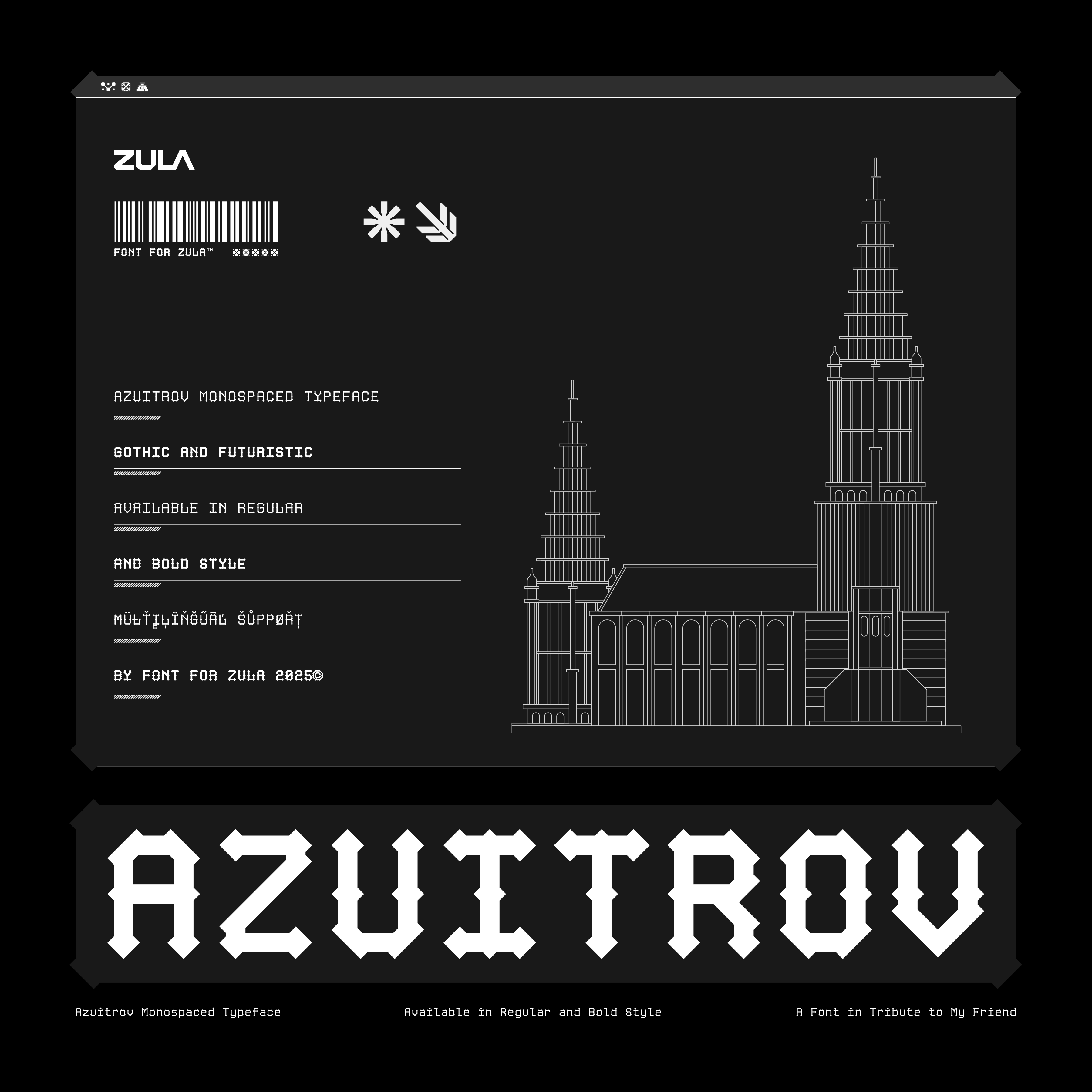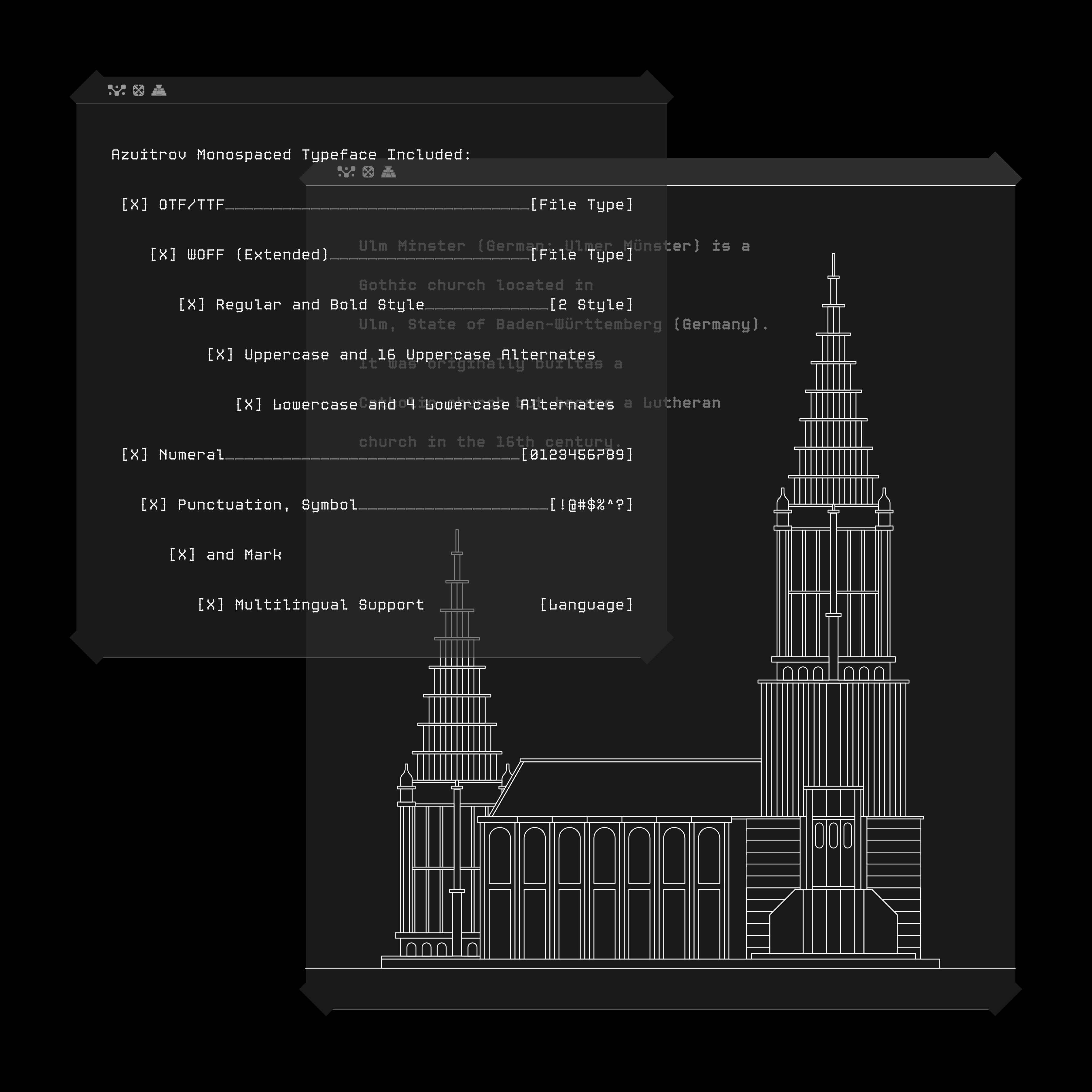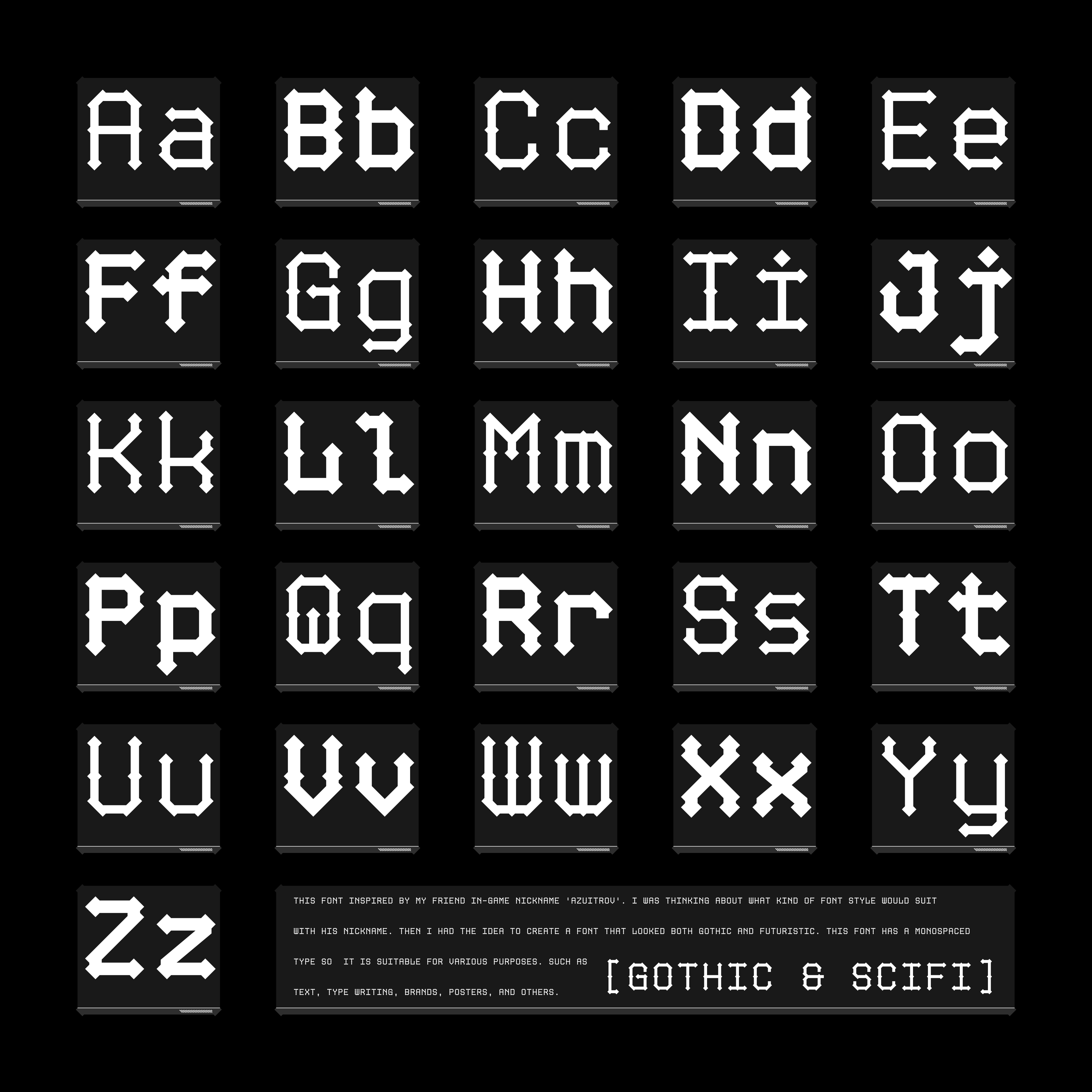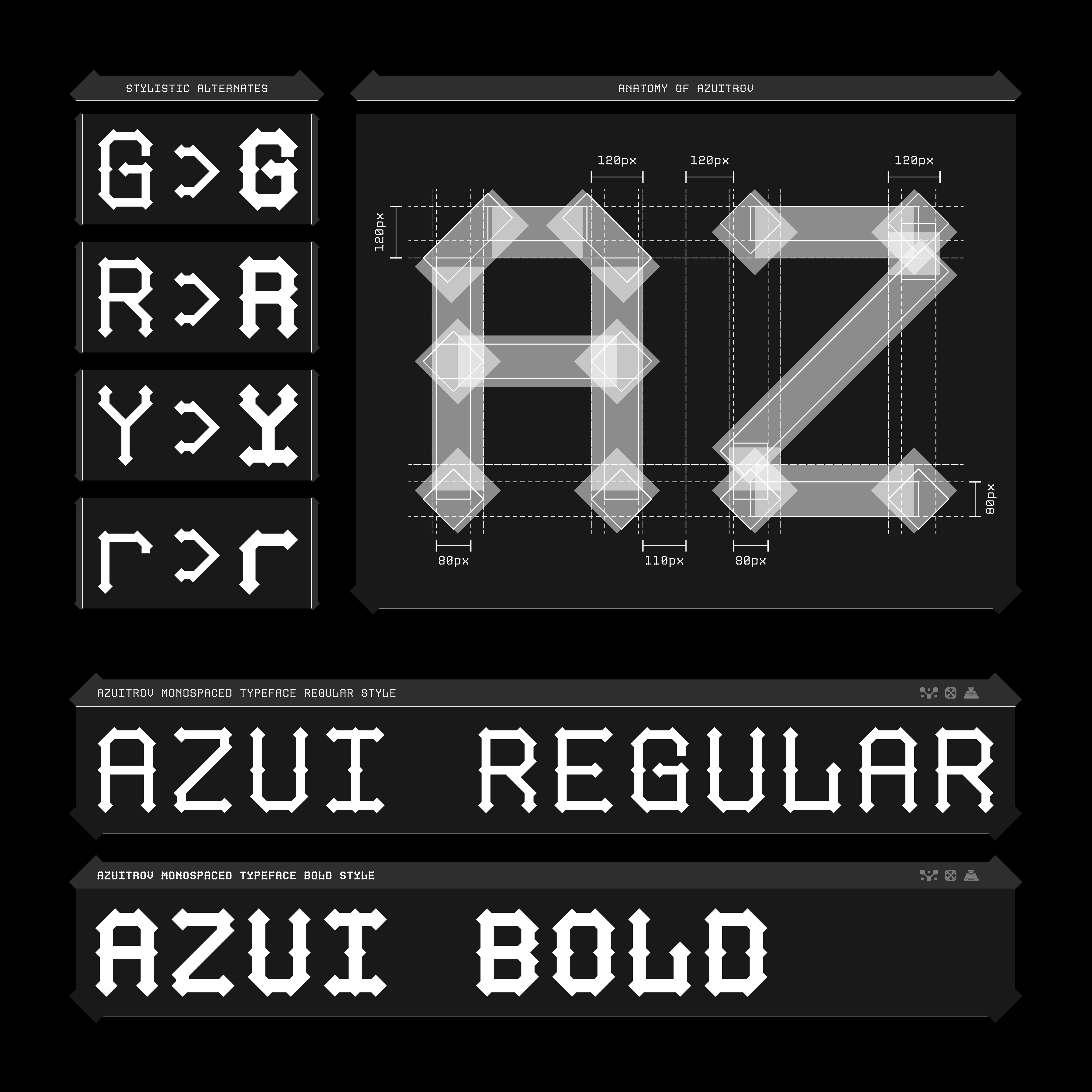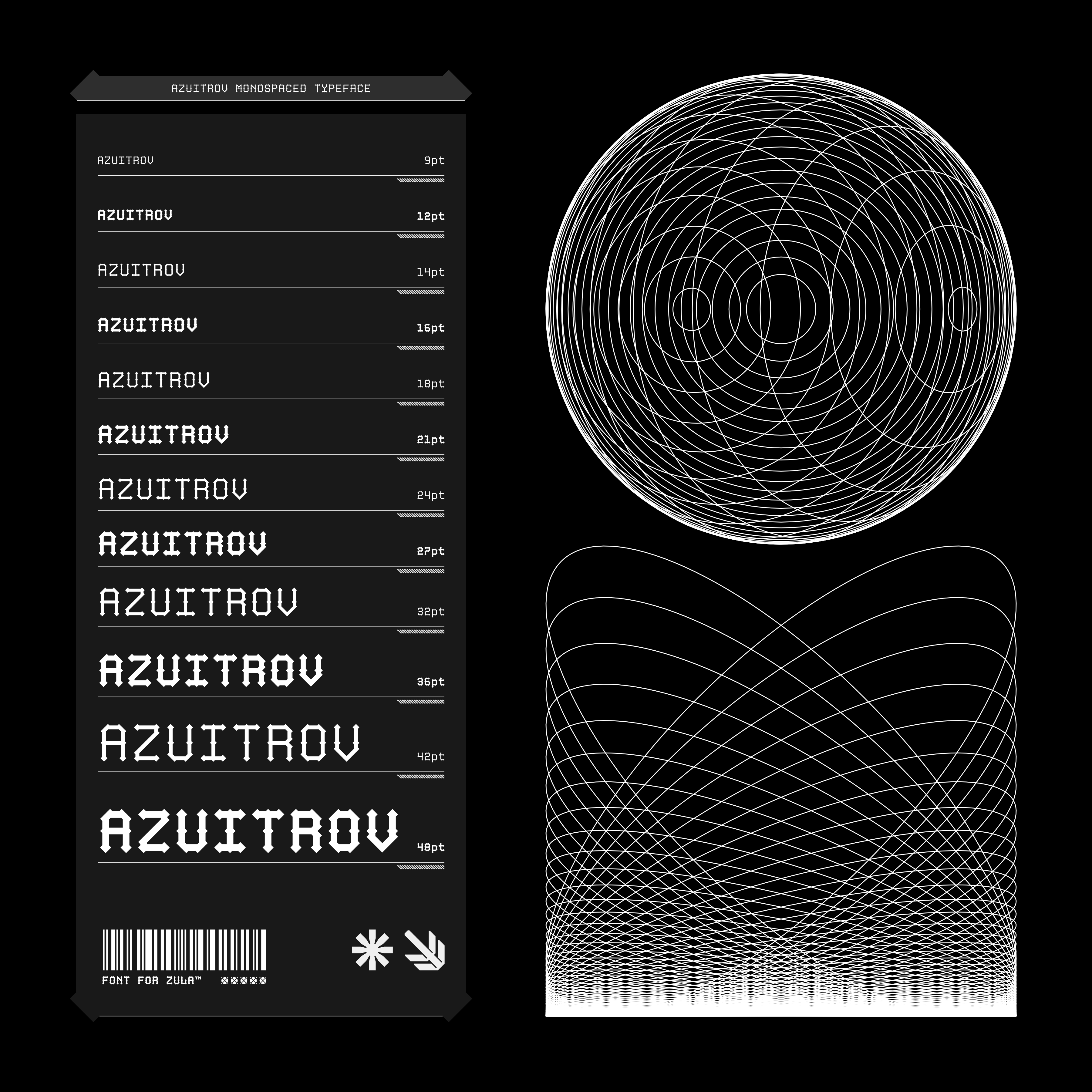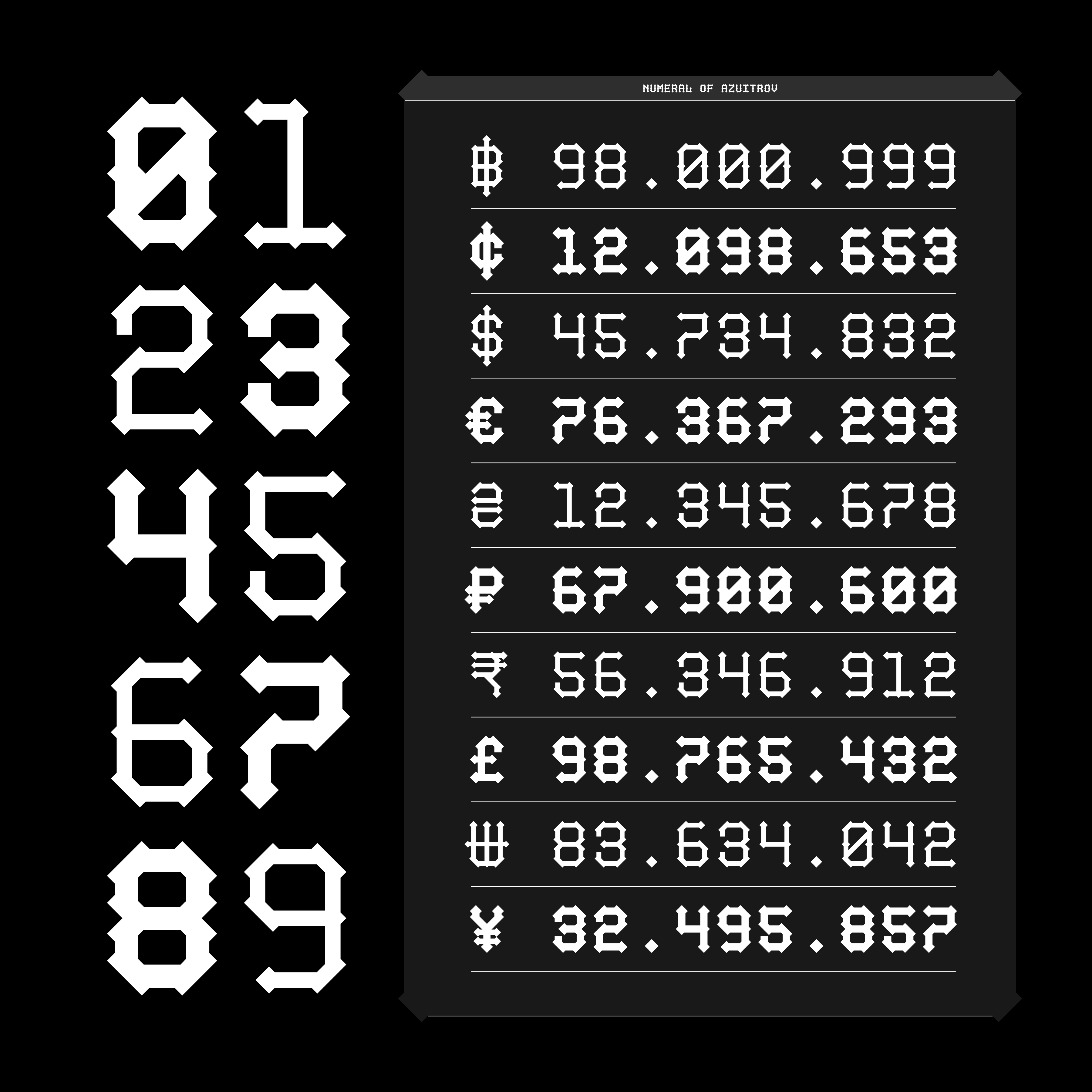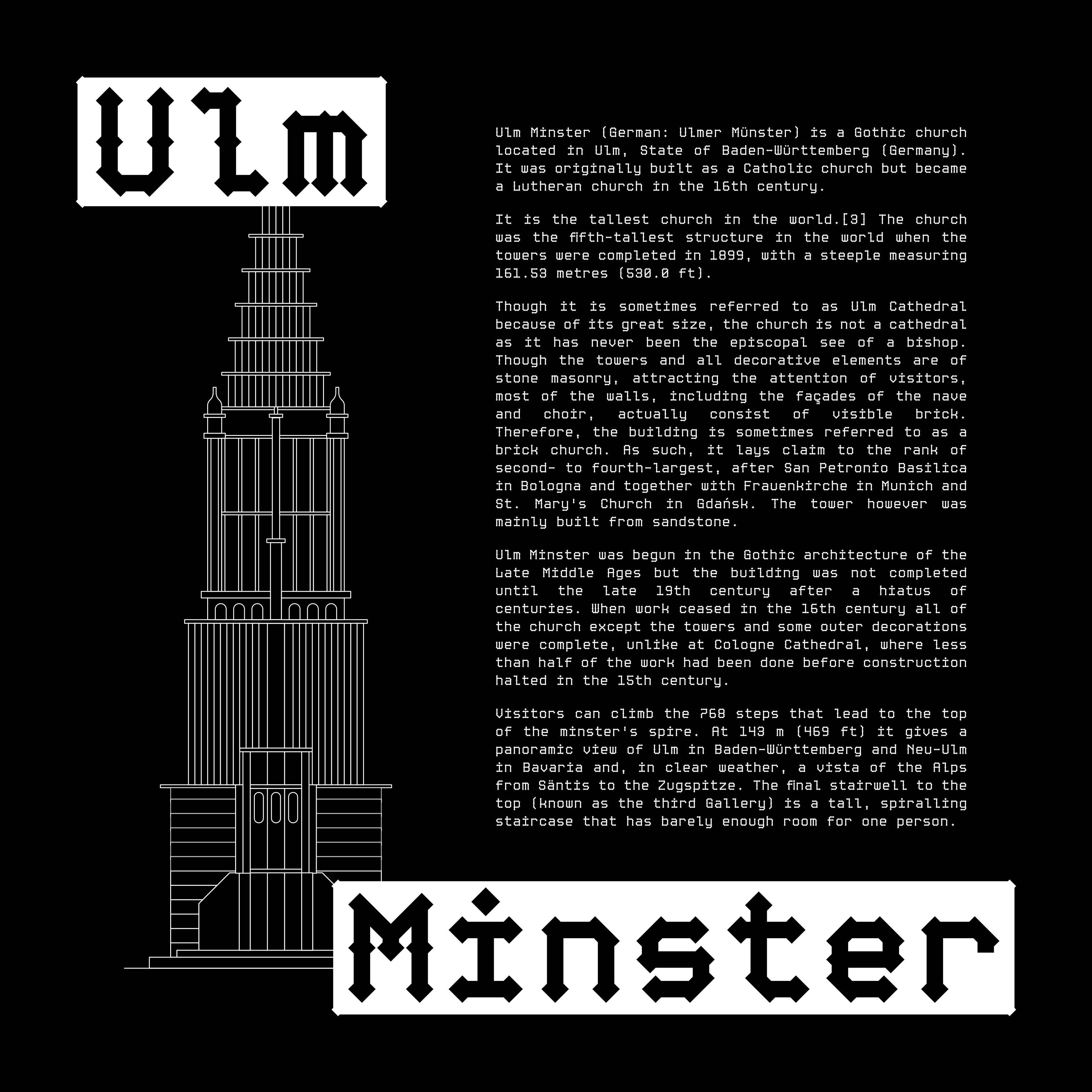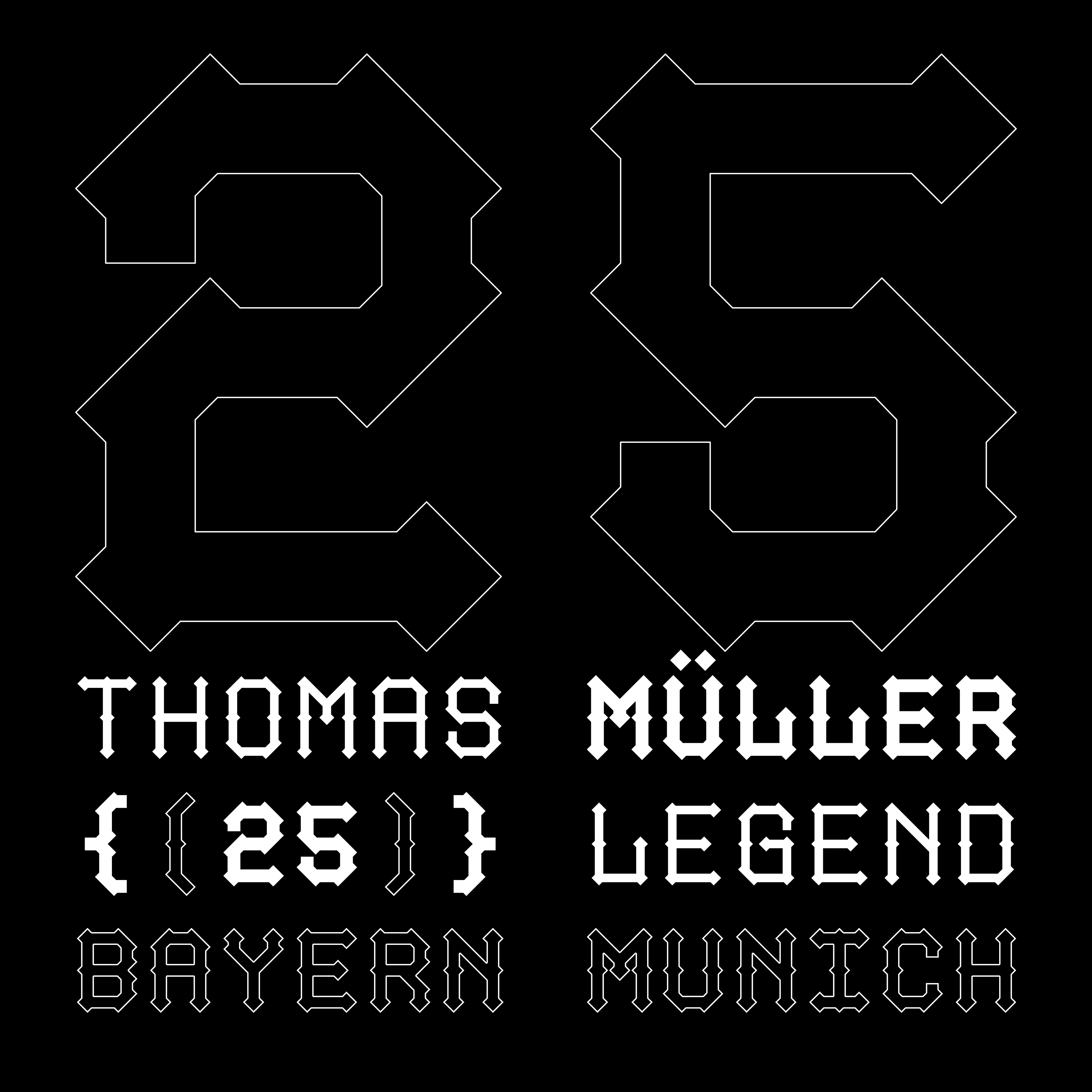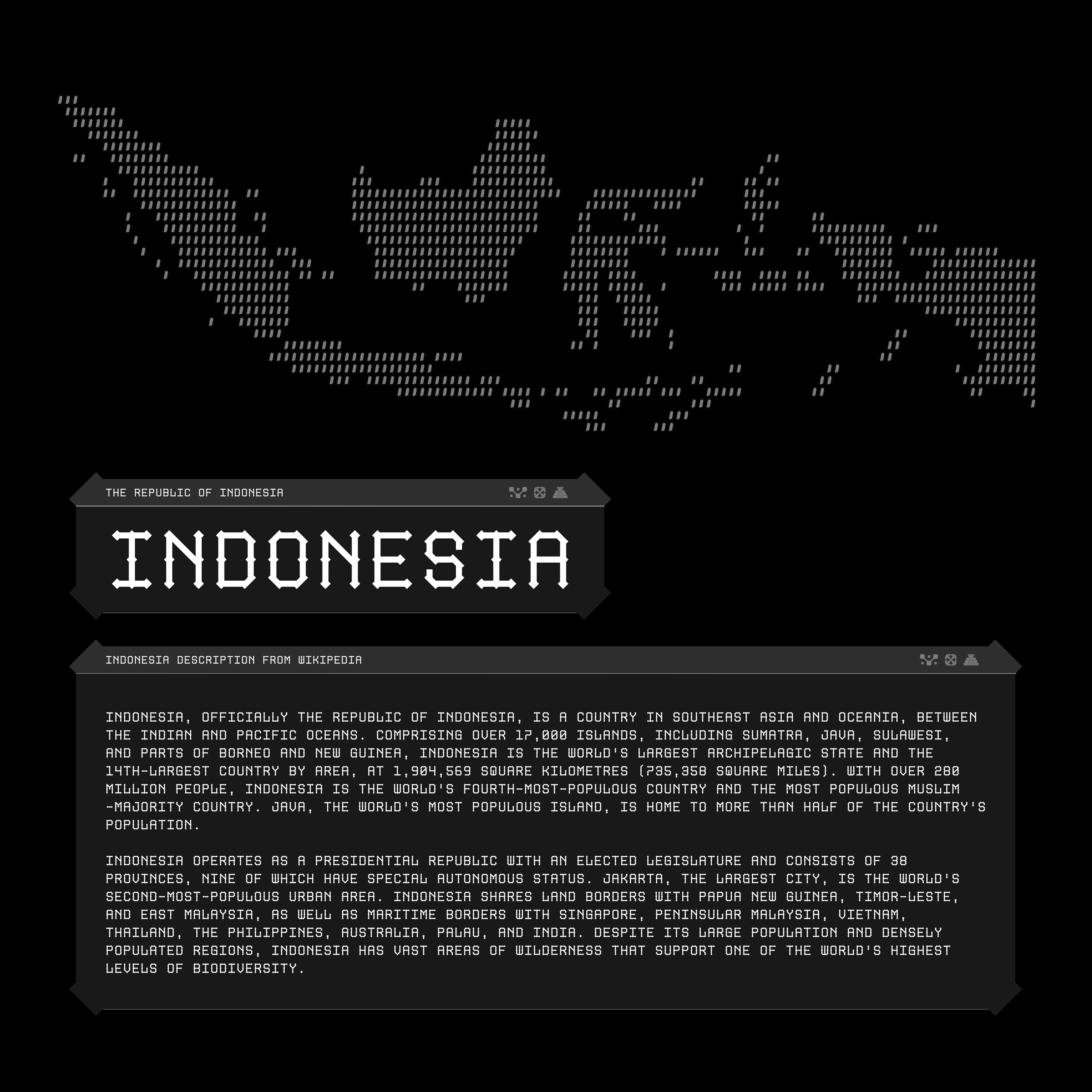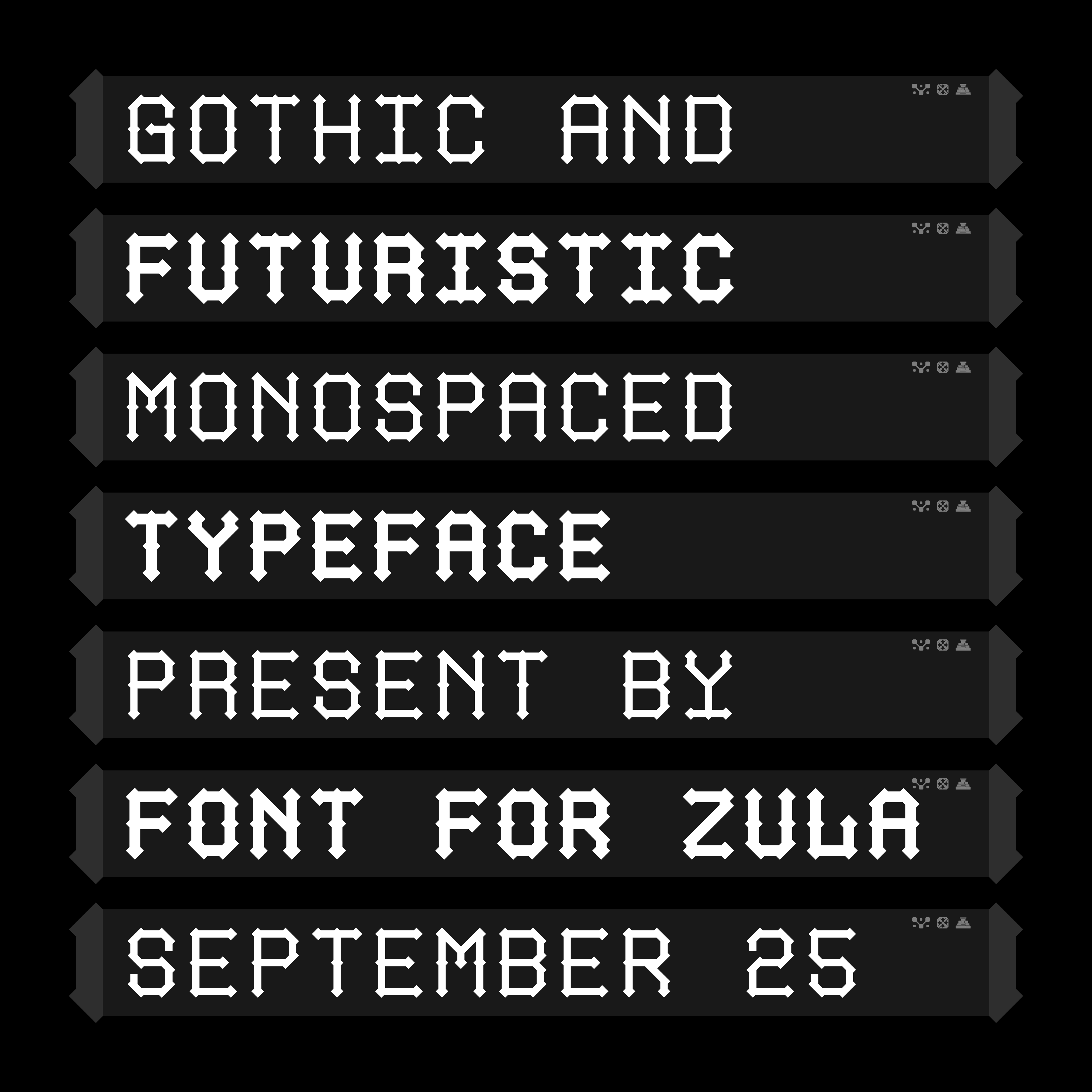
AZUITROV TYPEFACE
This font inspired by my friend in-game nickname ‘AZUITROV’. I was thinking about what kind of font style would suit with his nickname. Then I had the idea to create a font that looked both gothic and futuristic. This font is a monospaced type and still has good readability. Suitable for various purposes such as text, brands, posters, and others.
I know me and my friend will be forgotten from this world, but at least we're trying to be remembered just a little. So we have to create work to leave a legacy. And this is proof of our existence, proof that we once existed on this earth.
Regular and Bold Style
Uppercase and 12 Uppercase Alternates
Lowercase and 4 Lowercase Alternates